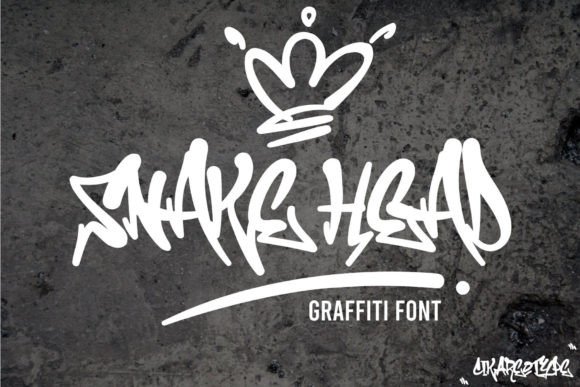
Prepare to be captivated by Snakehead Font, a display font that will infuse your designs with a captivating aura. This font, meticulously crafted by asf-graphics, possesses an innate ability to transform your creative visions into extraordinary realities. With its distinctive style, Snakehead Font is poised to propel your projects to unprecedented heights.
Snakehead Font's inherent charm lies in its versatility, effortlessly adapting to a myriad of creative endeavors. Whether you seek to craft captivating web designs, leave a lasting impression with business cards, or inject a touch of individuality into any project, Snakehead Font stands ready to elevate your creations.
Immerse yourself in the limitless possibilities that await with Snakehead Font. Its captivating curves and striking lines command attention, ensuring your designs radiate an aura of exclusivity. Prepare to witness the transformation as ordinary text morphs into captivating headlines, logos that exude professionalism, and social media posts that ignite engagement.
Snakehead Font's adaptability extends beyond mere aesthetics. Its intricate design ensures seamless integration with Cricut machines, empowering you to unleash your creativity in the realm of crafting. Personalize mugs, T-shirts, and home décor with names and phrases that radiate individuality. The possibilities are boundless, awaiting your artistic touch.
With Snakehead Font as your creative companion, you possess the power to transcend the mundane and embrace the extraordinary. Prepare to embark on a journey where your designs captivate and inspire, leaving an indelible mark on all who encounter them. Seize this opportunity to unlock the full potential of your creativity and witness the transformative power of Snakehead Font.